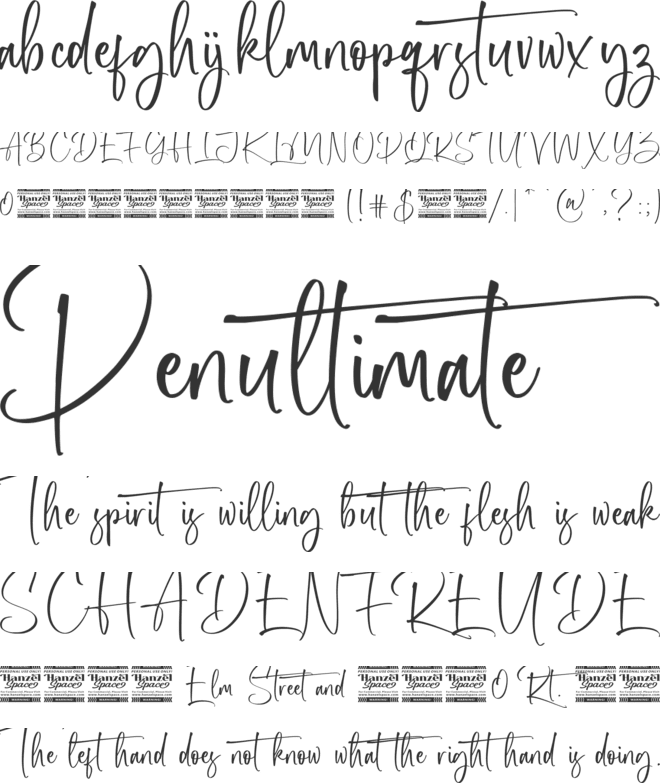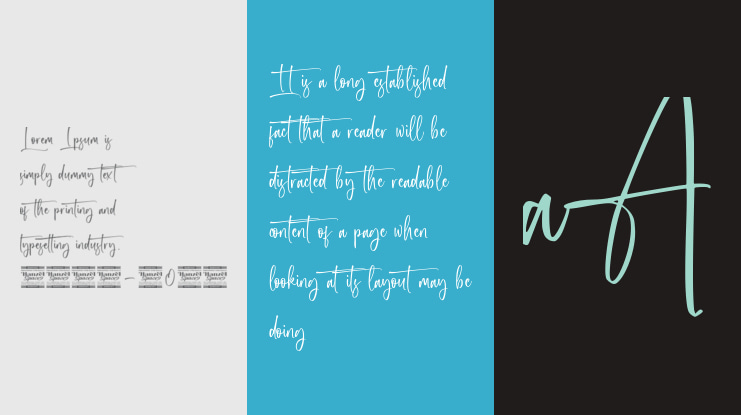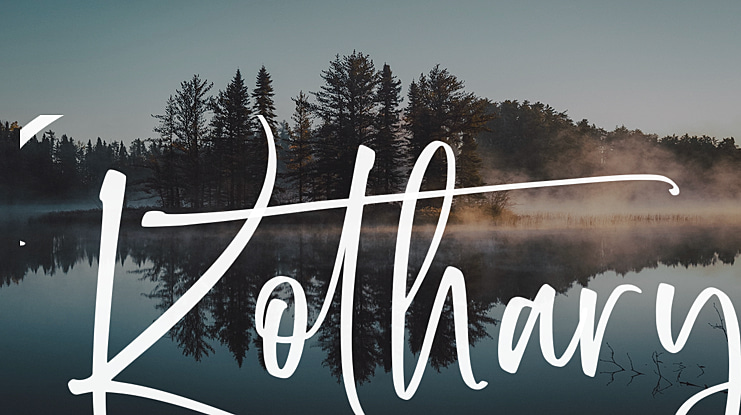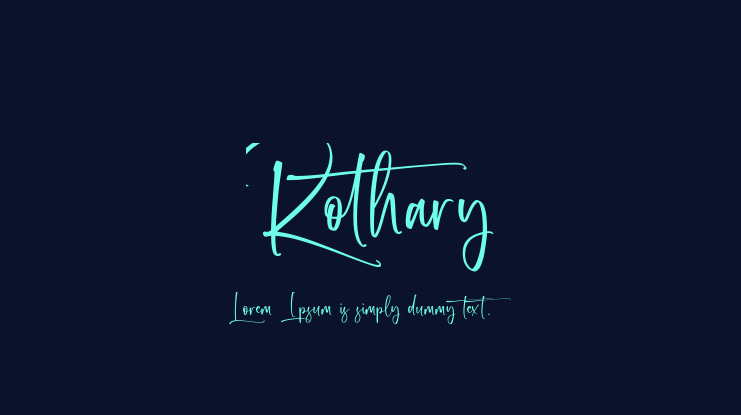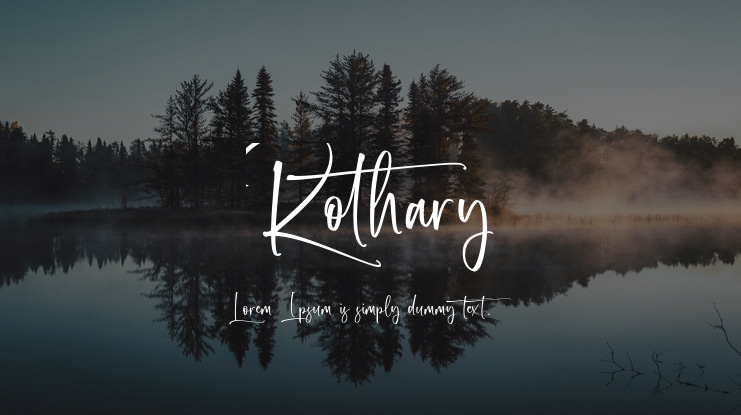
Introducing Rothary Script Font
Rothary Script Handwritten Font with contemporary, sophisticated accents. It is perfect for branding, wedding invites, tagline, cards, maybe for label and logo.
Rothary includes full set of gorgeous uppercase and lowercase letters, numerals, a large range of punctuation and ligatures. It expresses beauty of handwriting. What you get
Standard Ligatures
Numerals and Punctuation